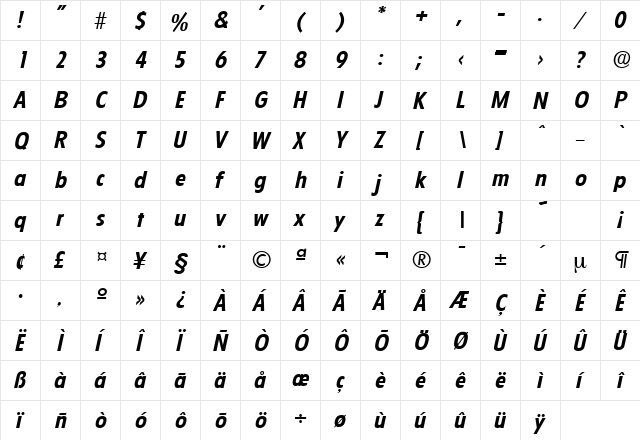
Florida-Serial BoldItalic
Design Context for Florida-Serial Typeface
Florida-Serial is a composed and adaptable typeface that performs quietly and consistently across a wide range of design contexts. The slanted form adds forward momentum and visual energy. Its bold stroke weight gives it real presence on the page.